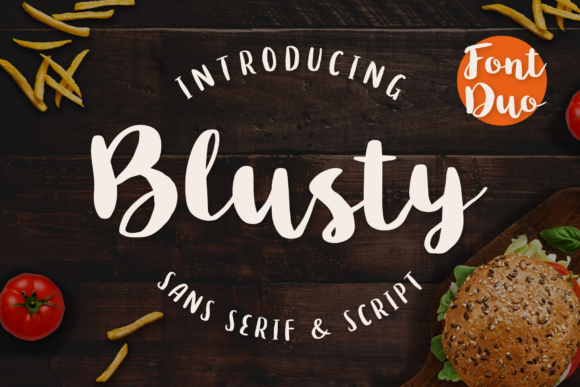
The Blusty Duo Font: A Handwritten Treasure for Designers and Creatives
• ✨ The Blusty Duo Font is a beautifully crafted handwritten font that adds a touch of humanity to any design project.
• ✅ Its irregular, hand-lettered look is perfect for creating a sense of warmth and approachability.
• ✅ The font comes with a range of loving details, including ornamental swashes and banners, that can elevate even the simplest design.
• ✅ The Blusty Duo Font is incredibly versatile, making it suitable for a wide range of design projects, from branding and packaging to invitations and social media graphics.
• ⚠️ As with any handwritten font, the Blusty Duo Font can be a bit tricky to read at smaller sizes. Be sure to test it out in different contexts to ensure it’s legible.
• ⚠️ Some of the more intricate swashes and banners can be a bit finicky to use, especially for beginners. Don’t be afraid to experiment and play around with the font’s OpenType features.
The Story Behind the Blusty Duo Font
The Blusty Duo Font was created by a talented type designer who wanted to capture the beauty of real handwriting in a digital font. Inspired by the imperfections and quirks of handwritten text, the designer crafted a font that would add a touch of humanity to any design project. With its loving details and ornamental swashes, the Blusty Duo Font is the perfect choice for designers and creatives who want to add a personal touch to their work.
Q: What makes the Blusty Duo Font so special?
A: The Blusty Duo Font is special because of its unique, handwritten look and feel. Its irregularities and quirks make it feel like real handwriting, adding a touch of humanity to any design project.
Q: Can I combine the Blusty Duo Font with other fonts?
A: Absolutely! The Blusty Duo Font is designed to be versatile and can be paired with a range of other fonts to create a unique look. Experiment with different font combinations to find the perfect pairing for your design project.